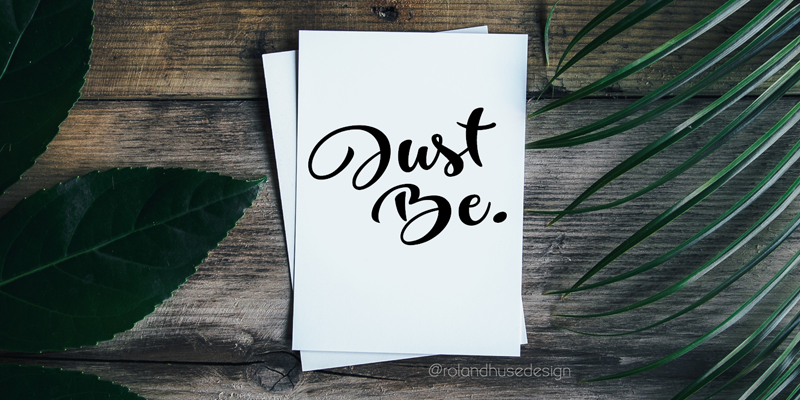
Just Be
Just Be Script Font
JUST BE is a playful brush script. Perfect for titles, headings and logotypes for blogs, products and lifestyle imagery (like quotes and stuff).